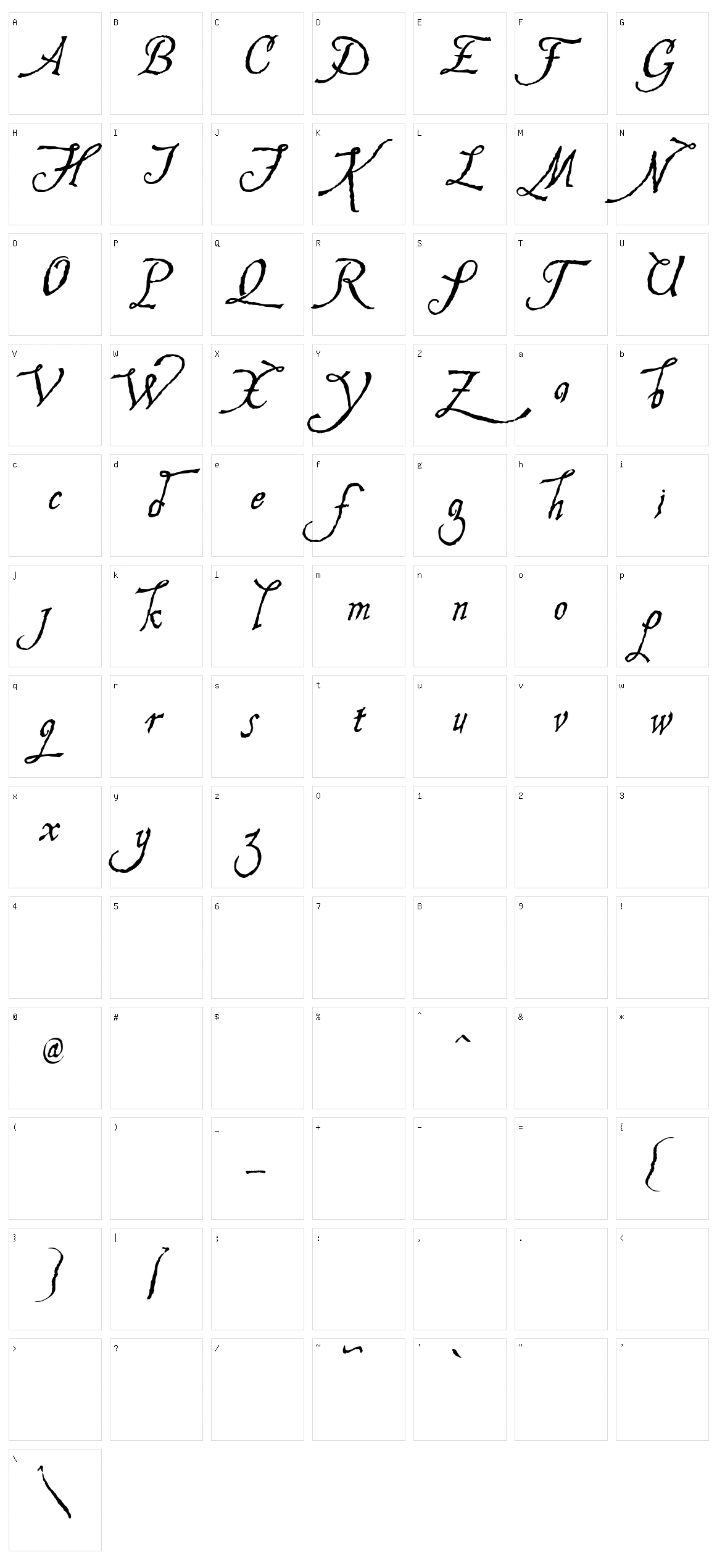
may leave those characters out alltogether. In some cases we include
transitional
forms, such as the older style of 'w' which looks like a 'n' and a 'u' or 'v'
joined together. In some cases where it seems appropriate we will create
compatible versions of these modern characters and add them.